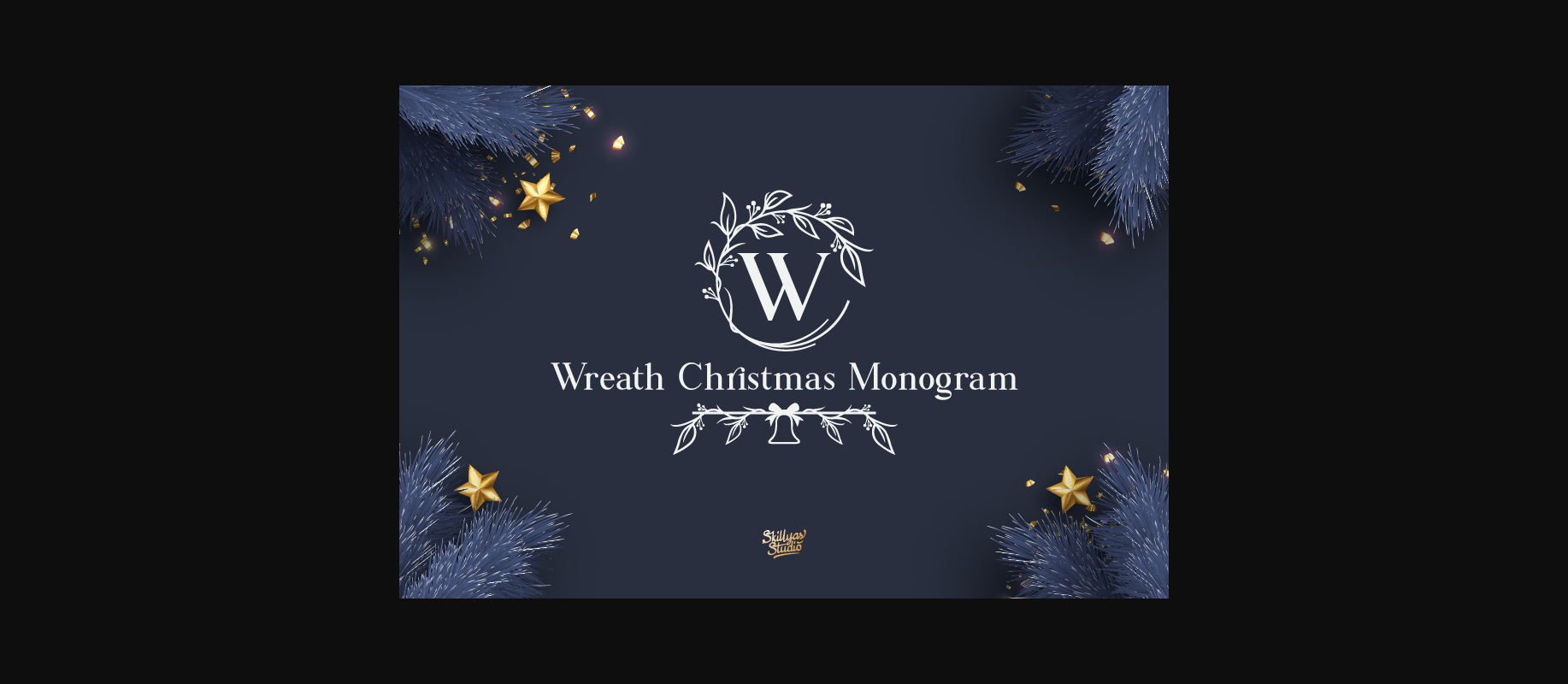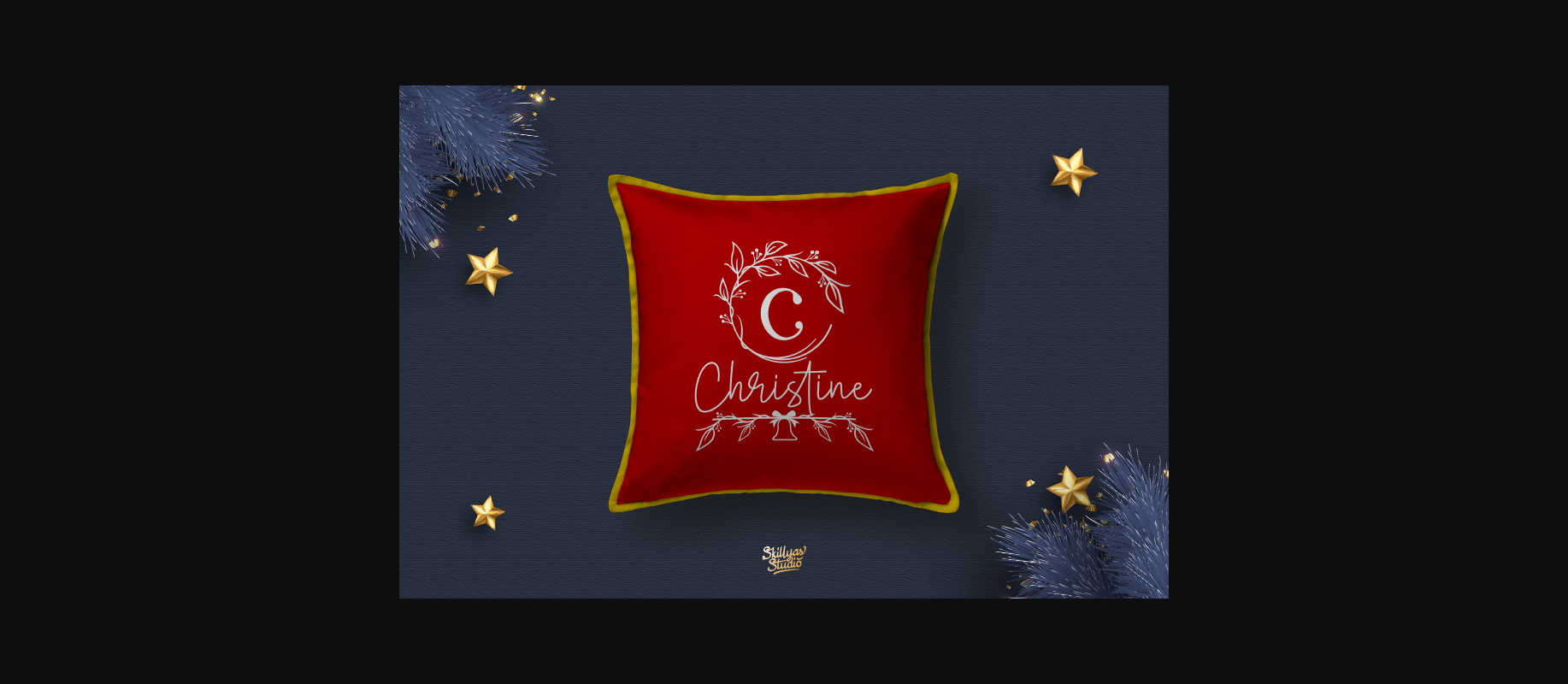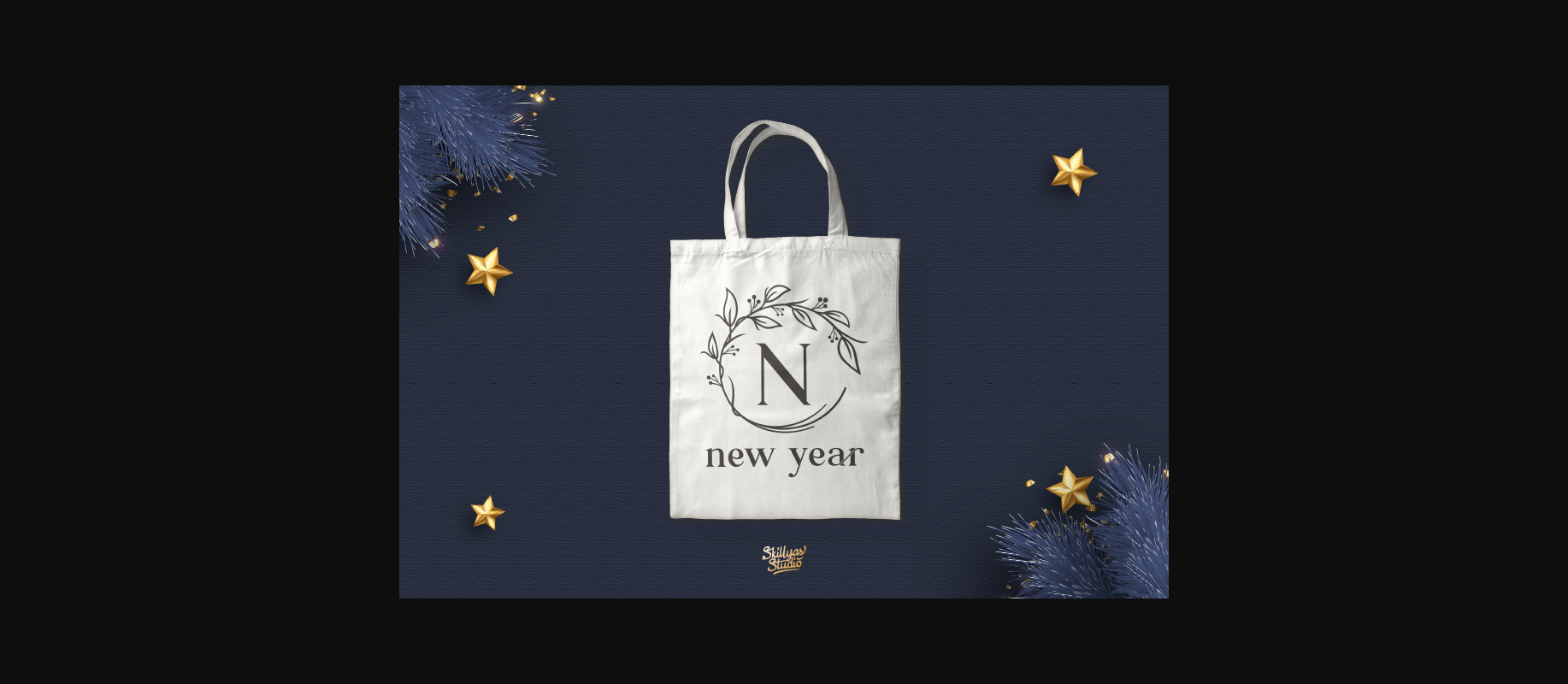
Wreath Christmas Monogram Font
About Wreath Christmas Monogram Font
Wreath Christmas Monogram is a dainty and unique decorative font. Add this romantic and lovely looking font to each of your love letters, wedding invitations or favorite design ideas, and you will be astounded by the outcome.